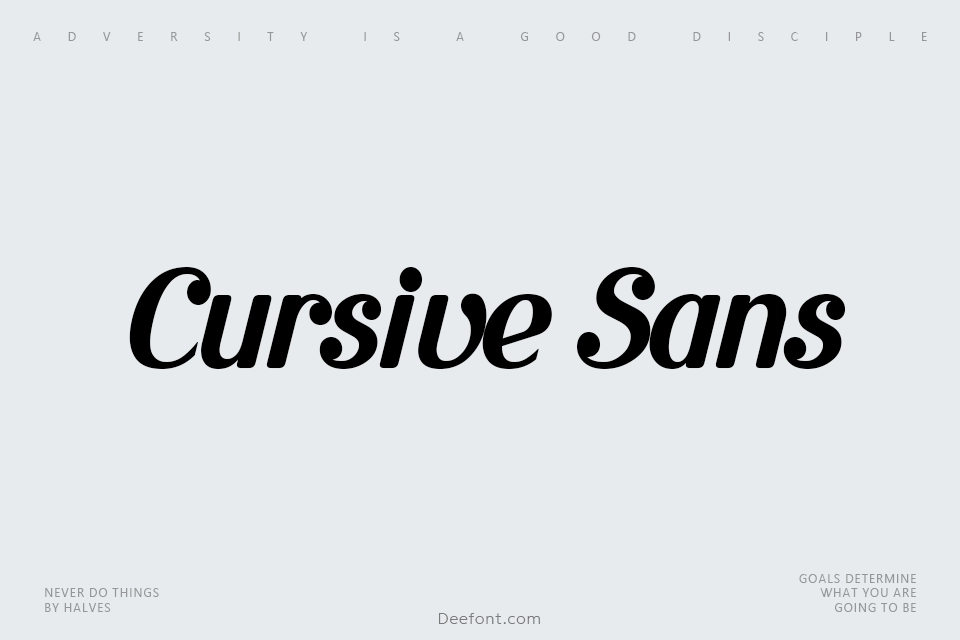
Cursive Sans Font
Cursive Sans is a distinctive cursive-sans serif font designed by Polish typographer Wojciech Kalinowski. This elegant typeface blends cursive and sans-serif aesthetics, featuring slanted uppercase letters with dynamic fluid appearance and consistent lowercase flow. Created originally for stone inscriptions, the font combines sophistication with readability, making it ideal for creative typography projects. With 409 glyphs supporting multiple languages and an oblique style variant, Cursive Sans offers versatile applications in branding, invitations, and editorial design. The modern aesthetic balances approachability with refined character design.